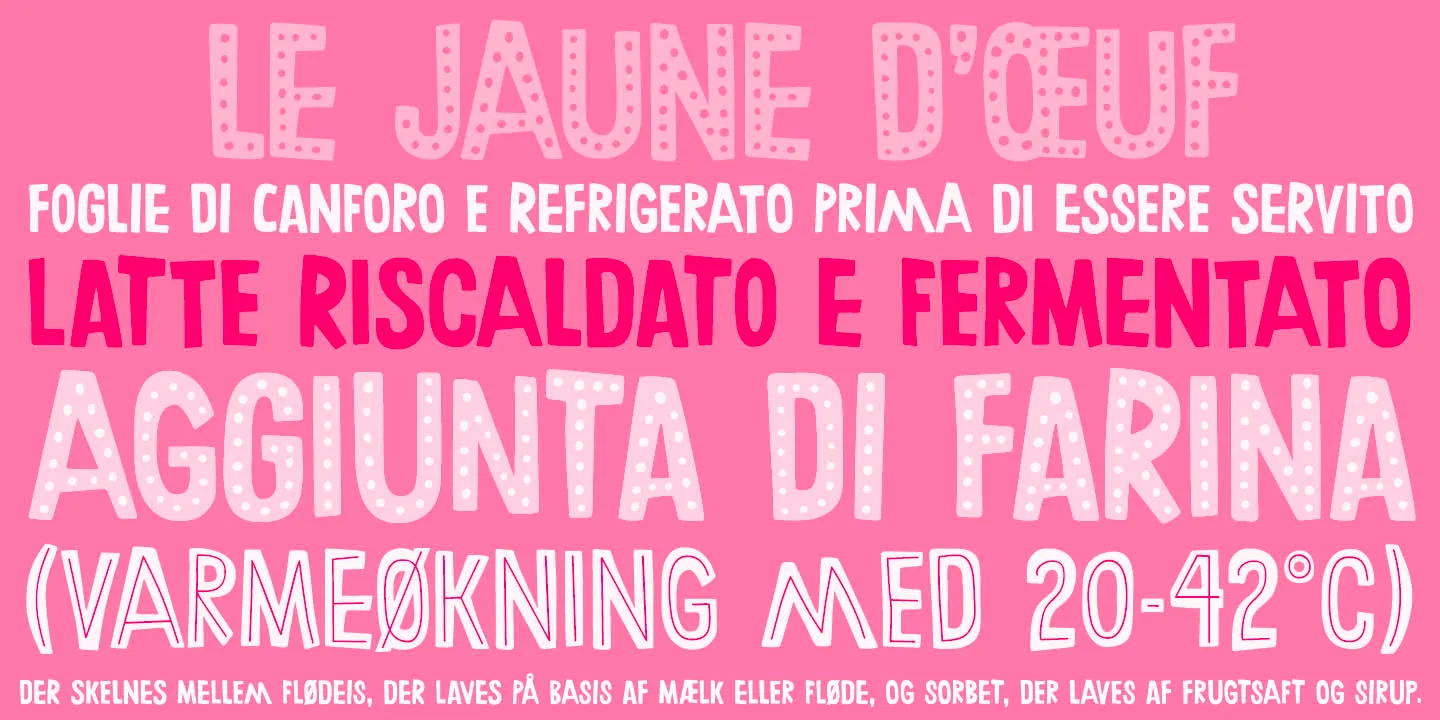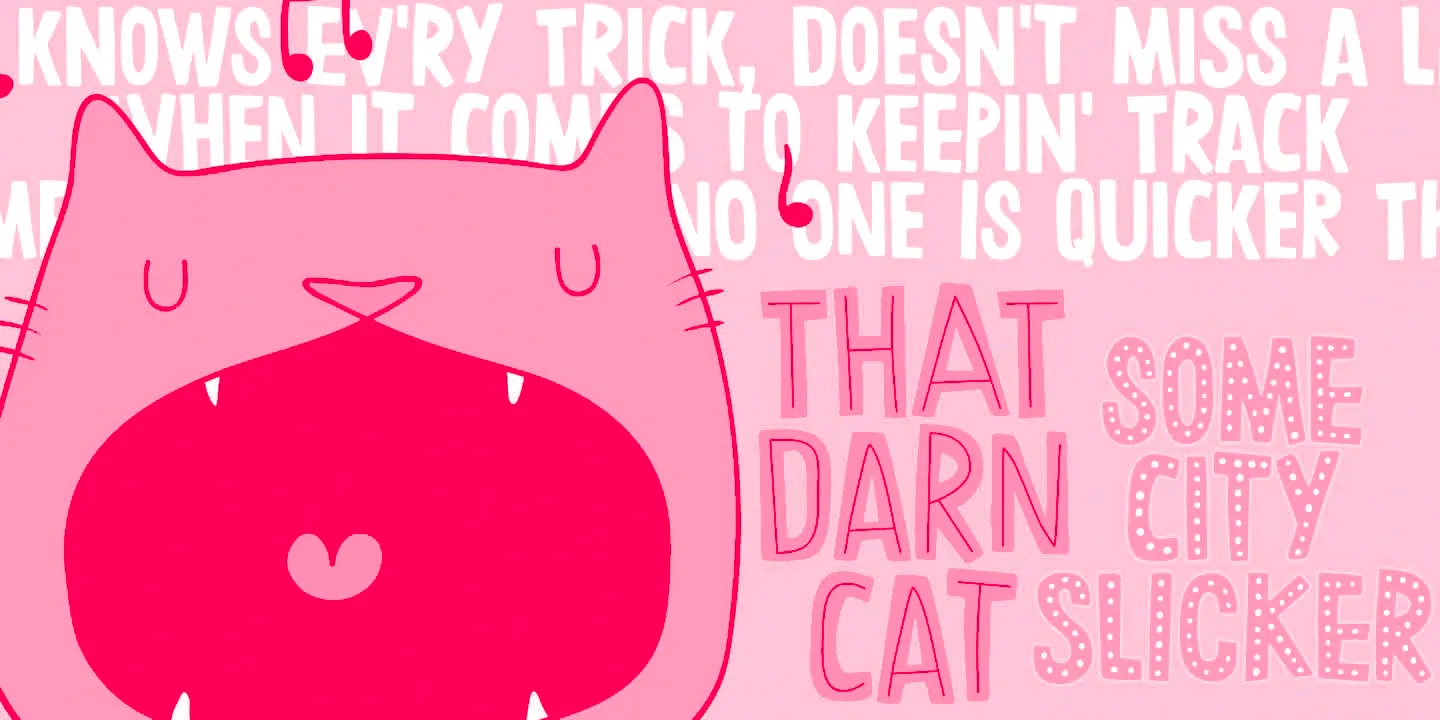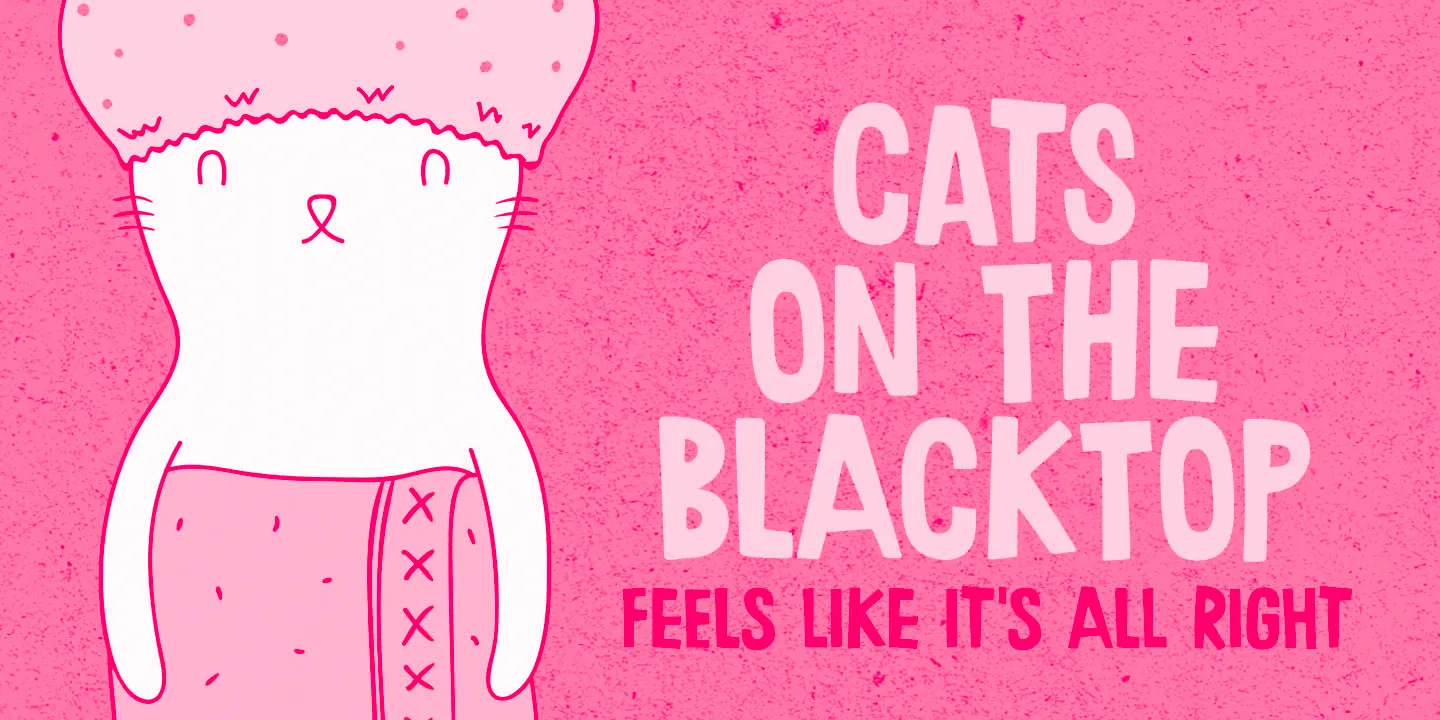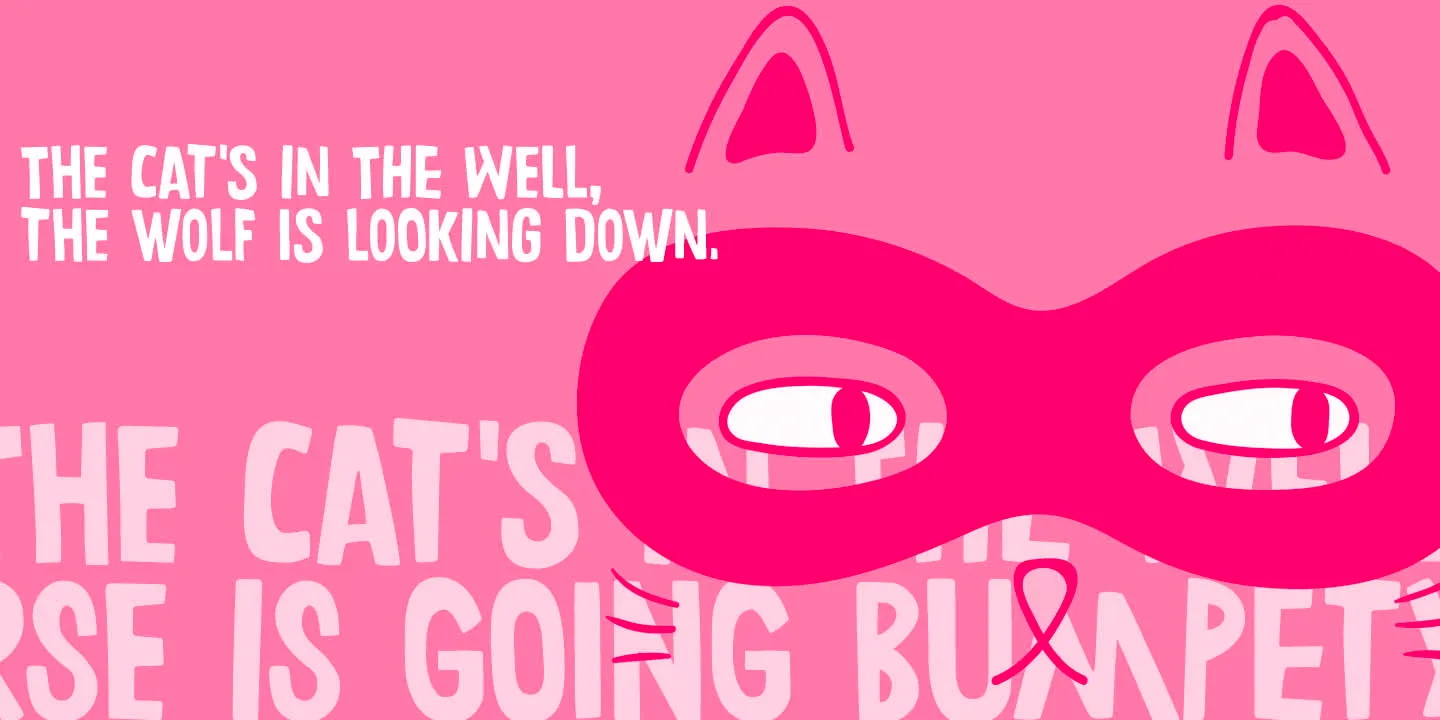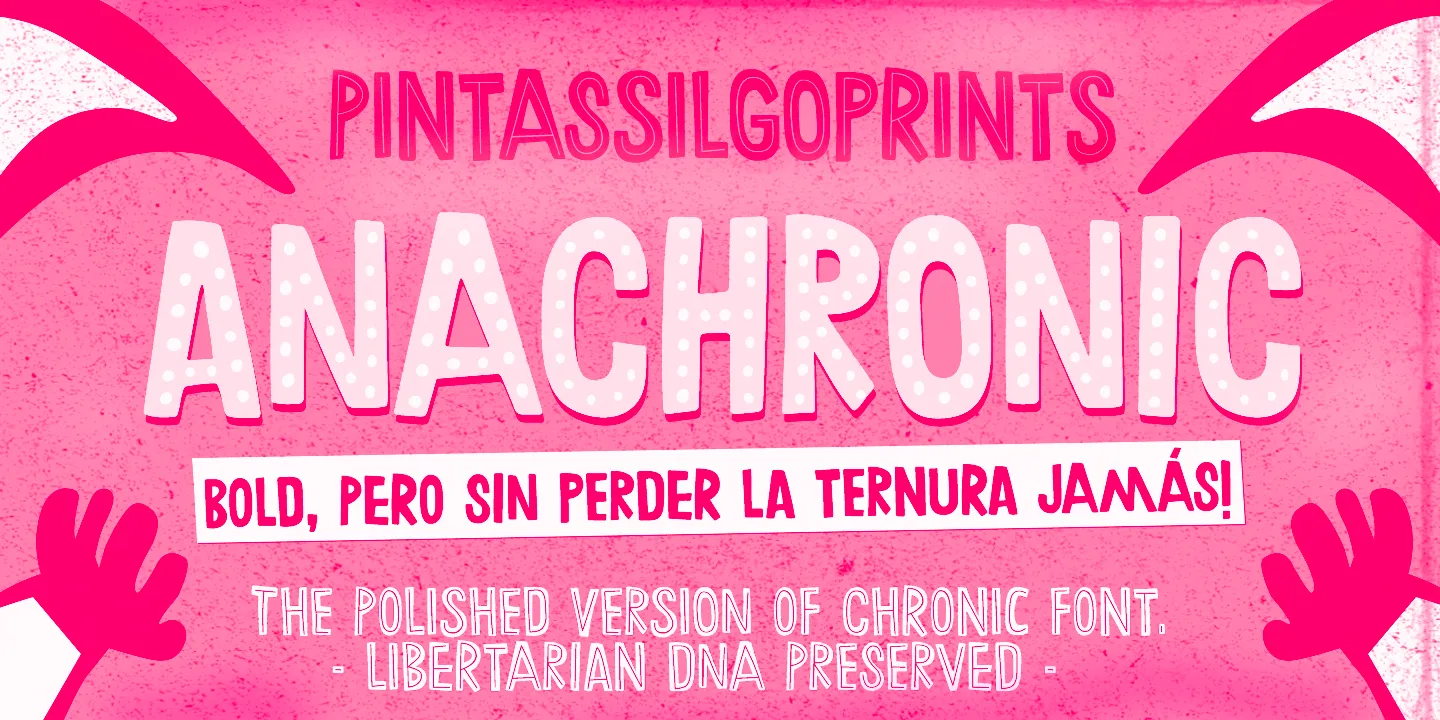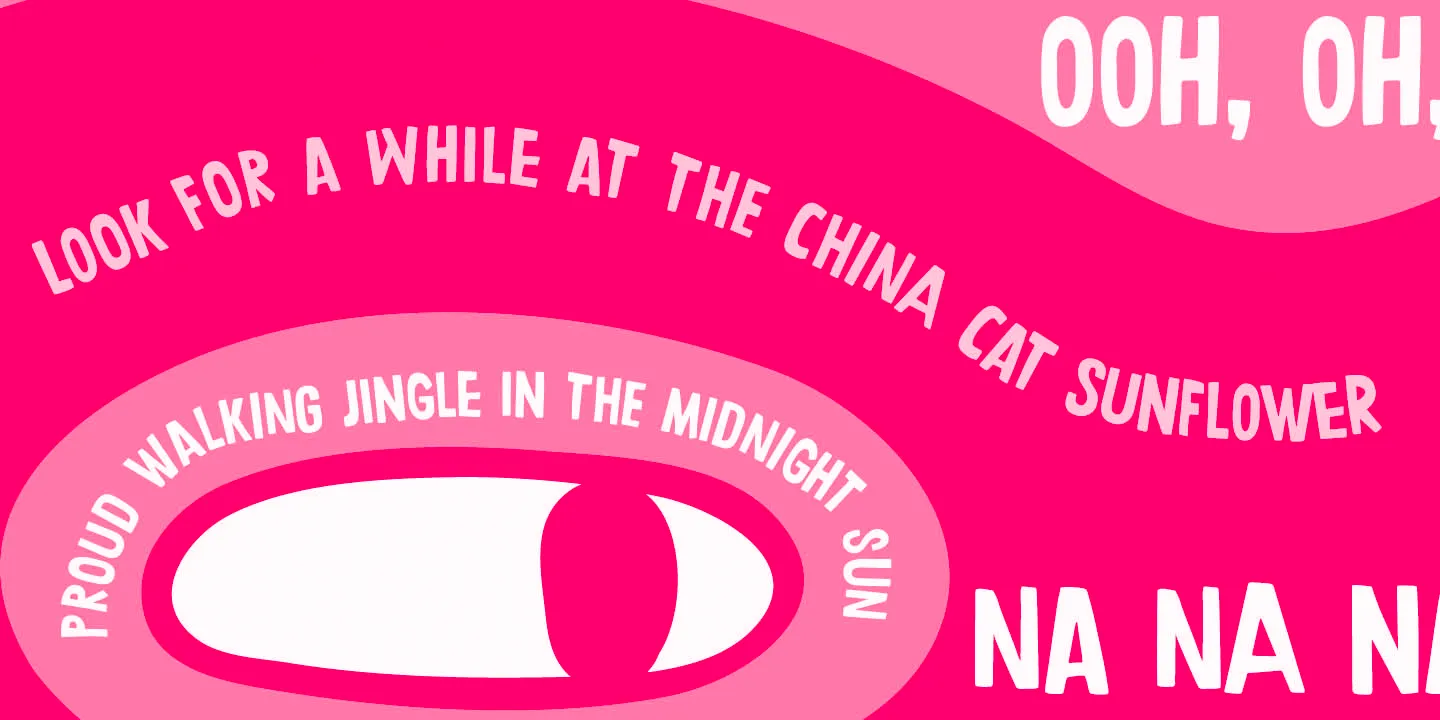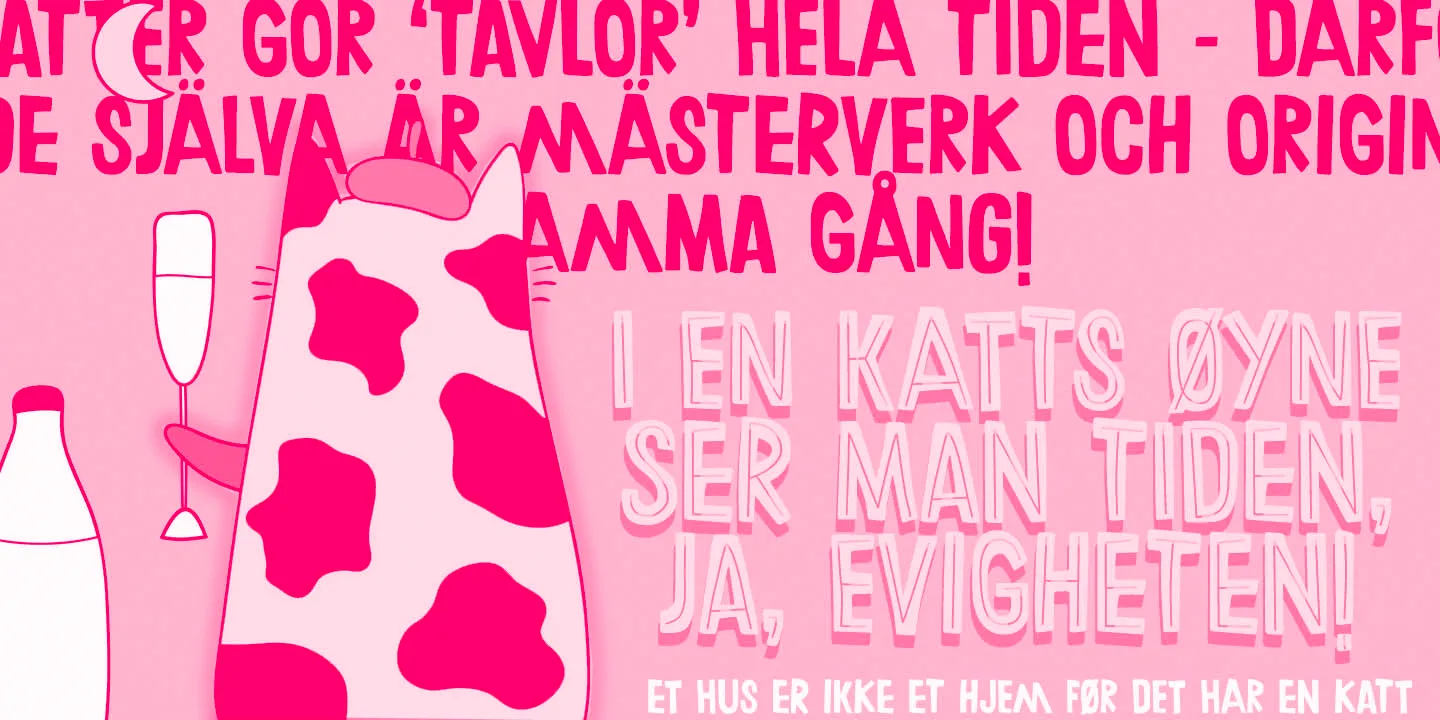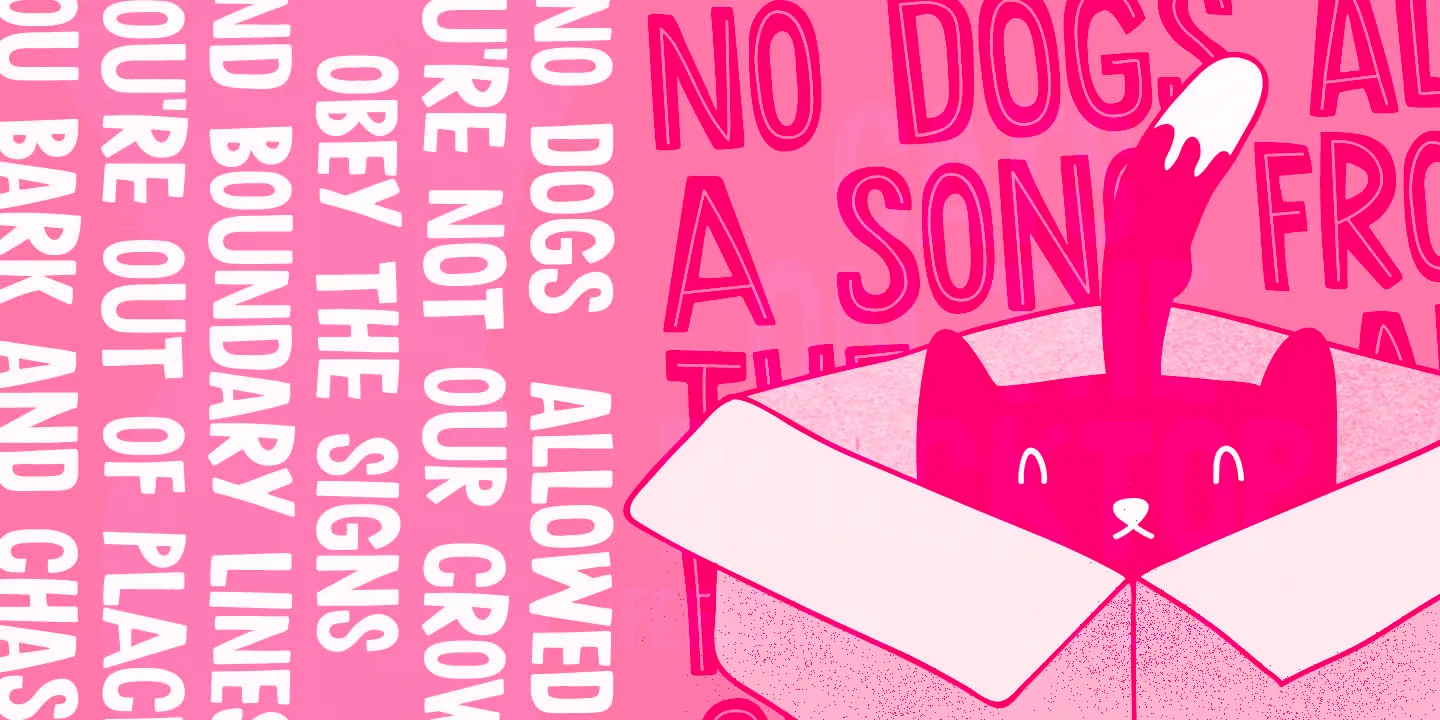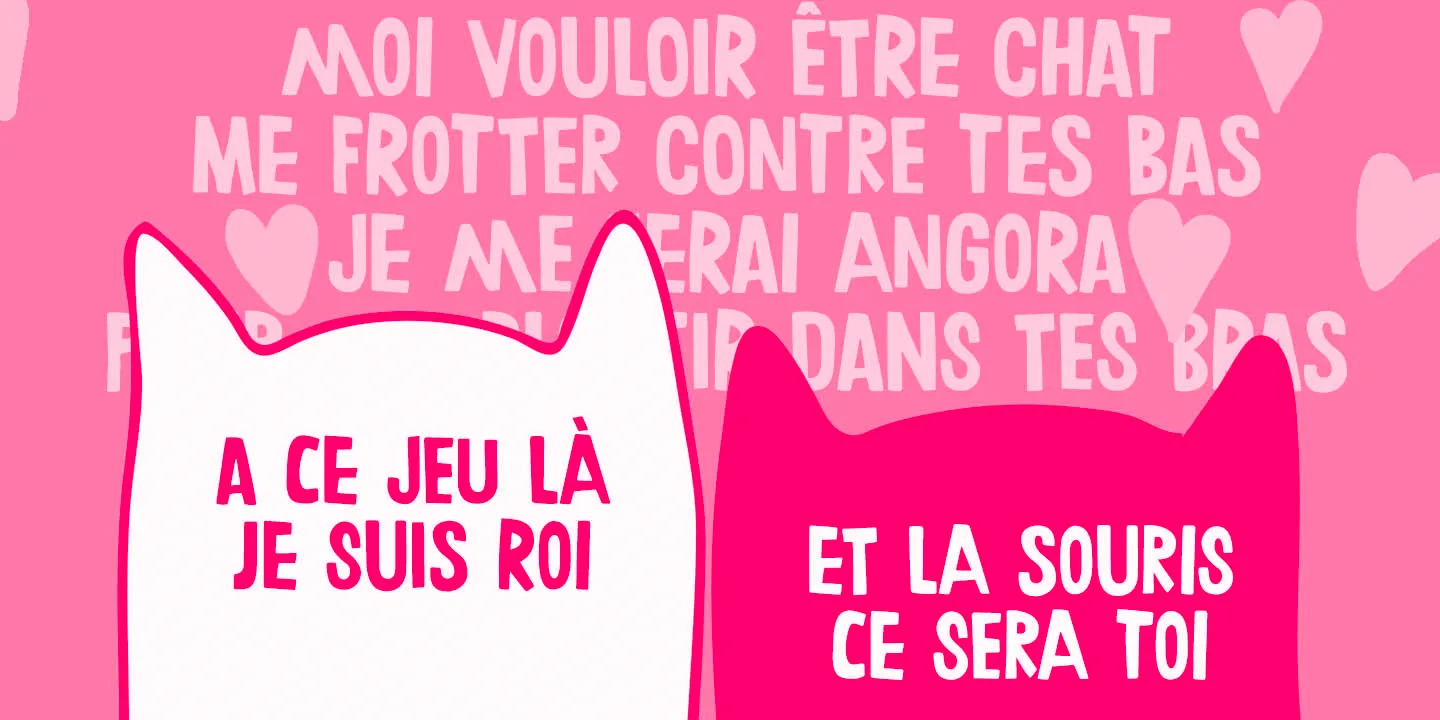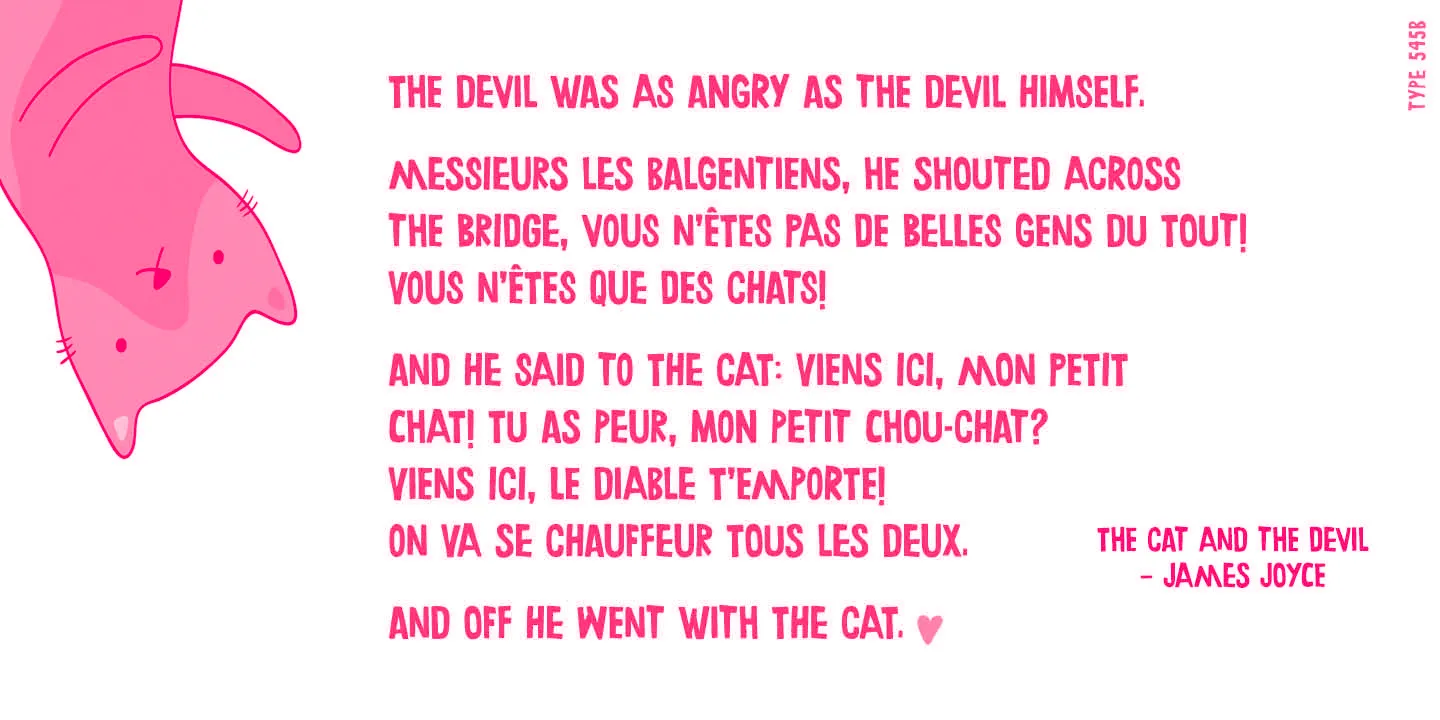
Anachronic Fonts
• Anachronic Dots
• Anachronic Line
• Anachronic Regular
Anachronic
Anachronic is a decorative, hand-lettered sans serif. A friendly all-cap design initially inspired by the art of HAP Grieshaber but includes some elements by Willem Sandberg, too. Two artists who lived through two world wars, struggled for freedom, and consistently manifested their love of liberty with words, works, and actions. Whether you use Dots, Line, or Regular each style can add a playful quirkiness to your design.